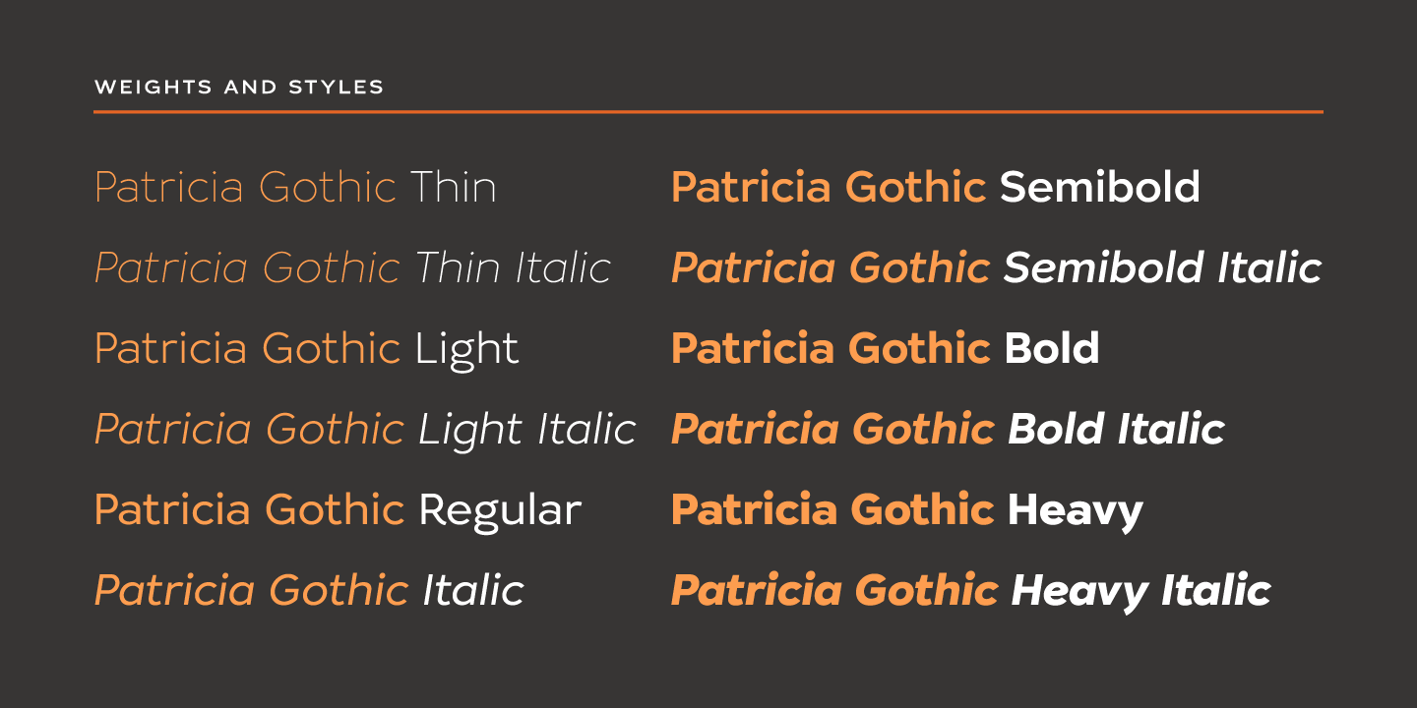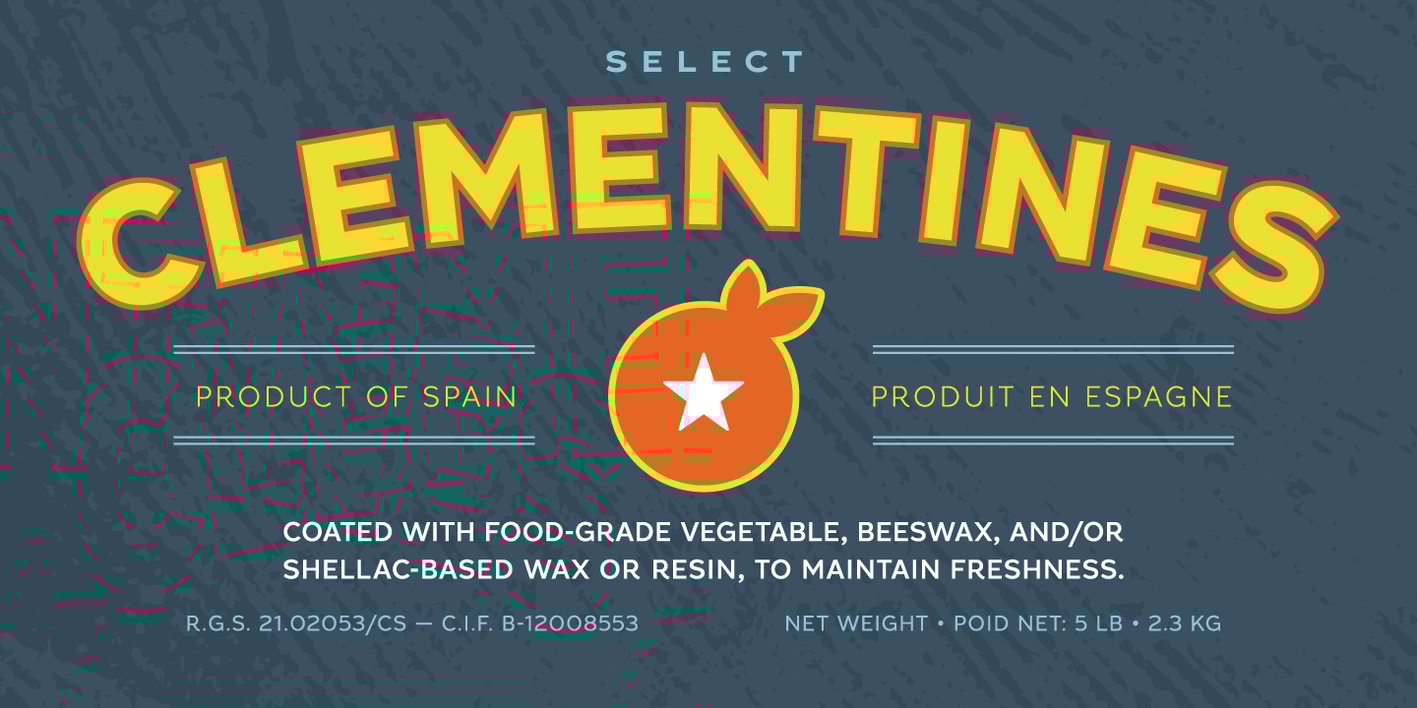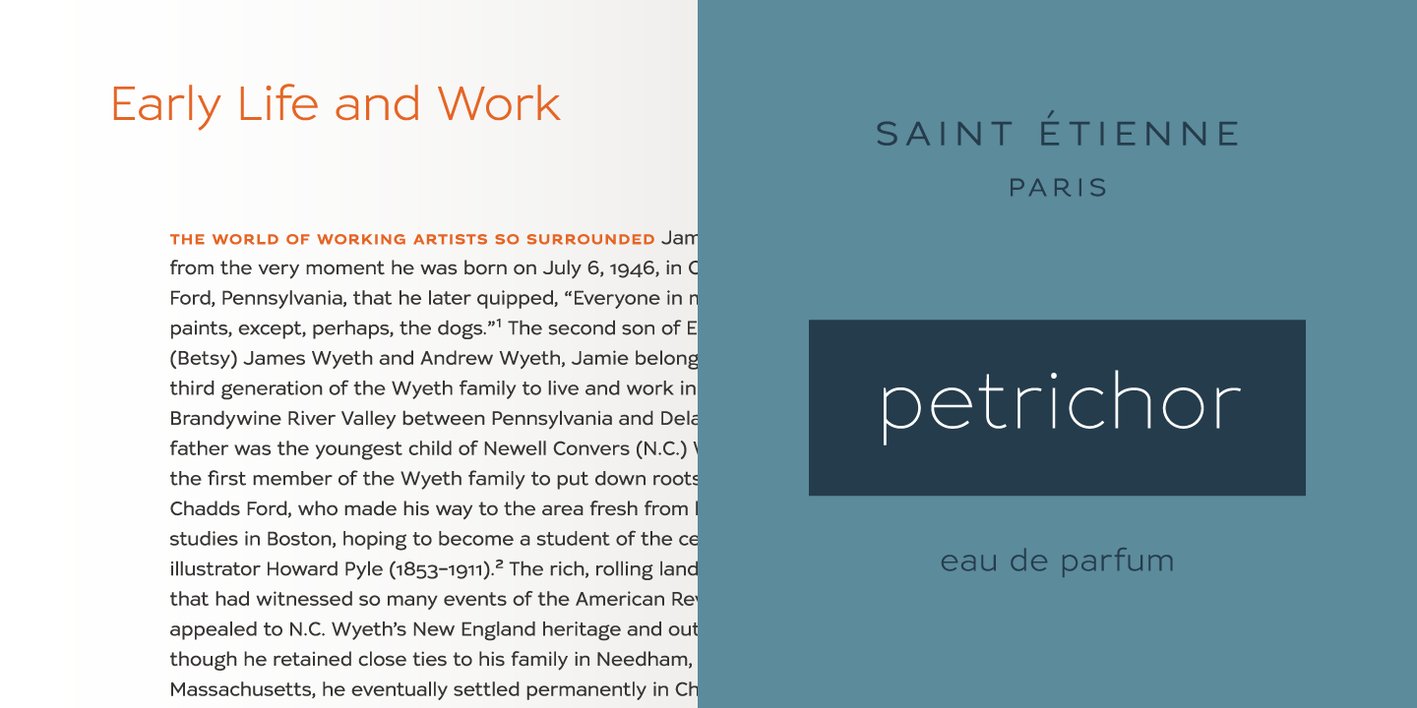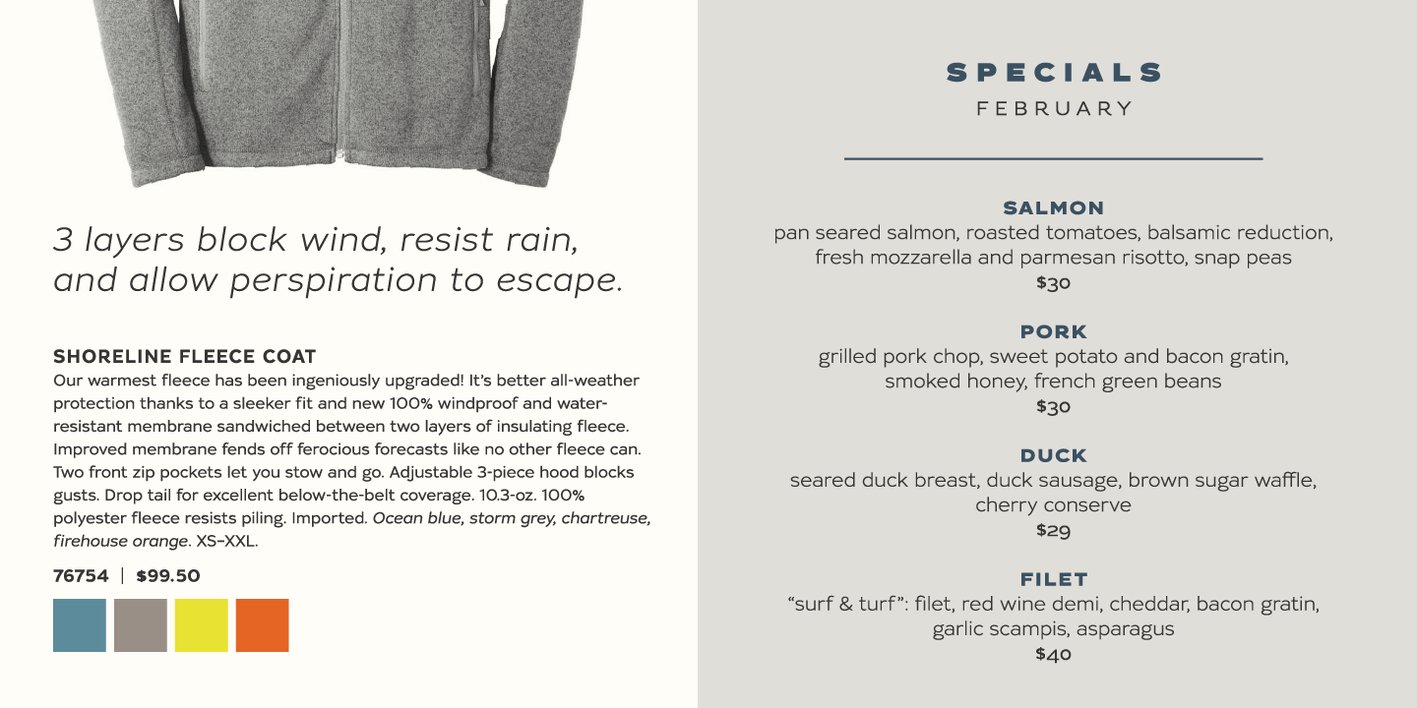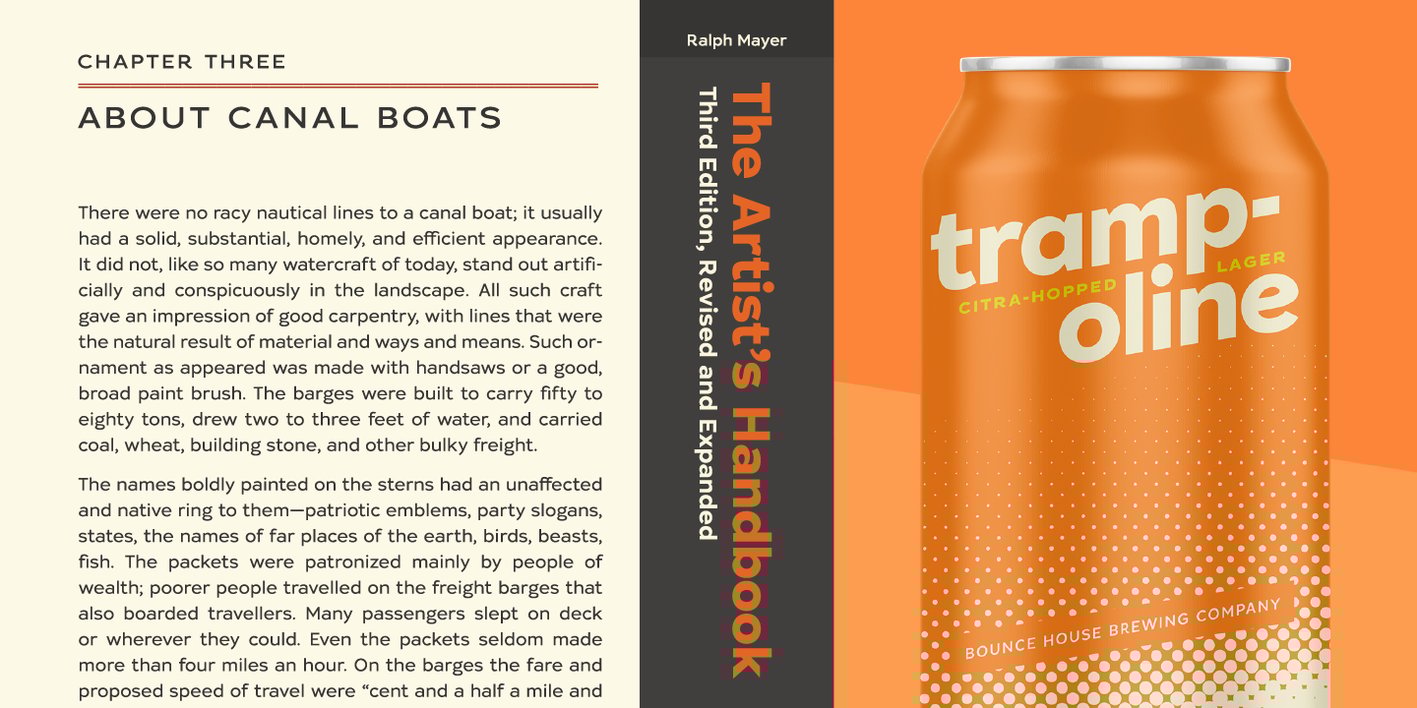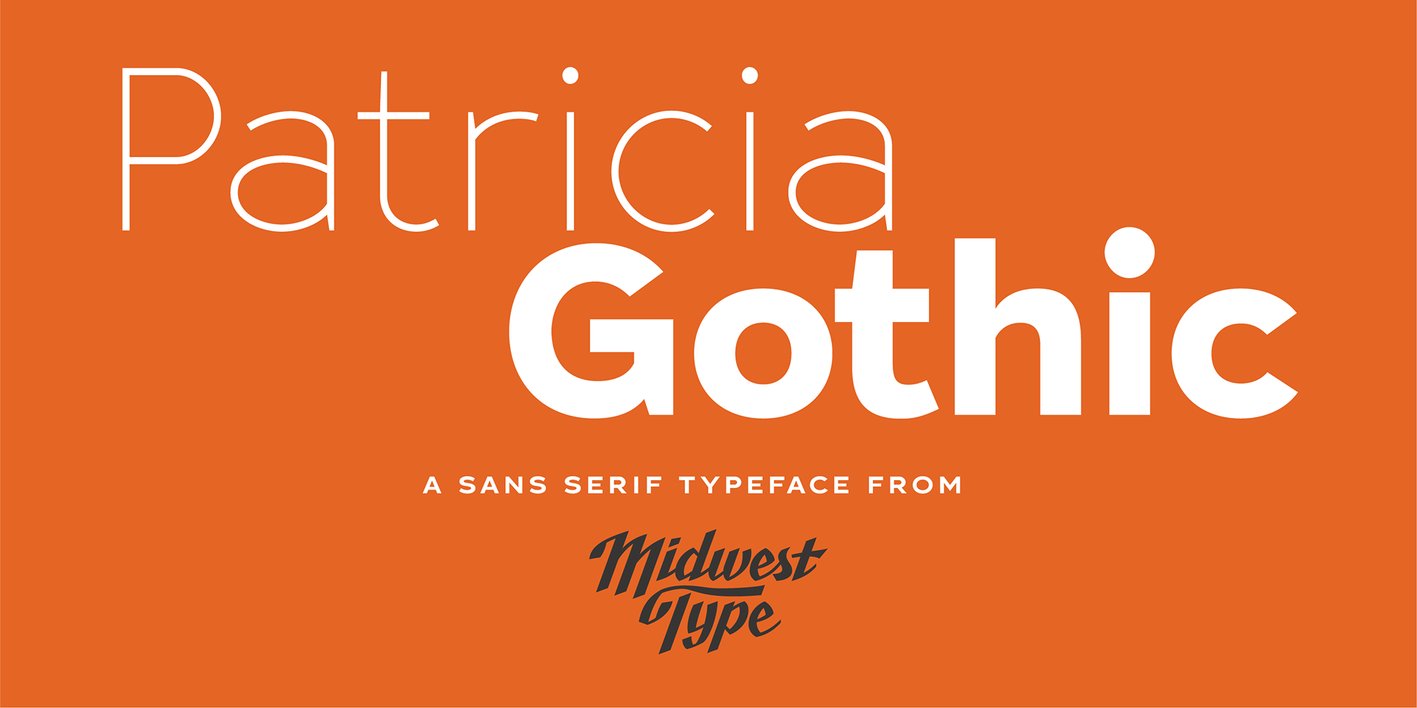
Patricia Gothic Font
Patricia Gothic Font is ideal for elegant fashion magazines, sophisticated beauty brands, upscale boutique signage, refined women's publications, luxury spa materials, premium jewelry packaging, classical music programs, graceful wedding invitations, distinguished cultural institutions, and timeless feminine branding projects.
What makes Patricia Gothic Font so exciting is its exquisite fusion of gothic strength and feminine grace that creates a uniquely sophisticated typographic voice celebrating both power and elegance in contemporary design. This beautifully crafted typeface features refined letterforms with classical proportions and graceful character variations that immediately convey sophistication, strength, and the timeless beauty of confident femininity. The font's elegant construction and refined aesthetic create an instant sense of distinguished taste and empowered grace, making it ideal for projects that need to communicate sophisticated femininity, classical elegance, and the powerful combination of strength and beauty to audiences seeking authentic elegance and meaningful empowerment through design excellence.
The Patricia Gothic Font family typically includes multiple elegant weights and refined styles, often featuring light, regular, and bold variations along with gracefully flowing italic versions. Sophisticated gothic font collections frequently offer additional classical elements such as ornamental flourishes, elegant ligatures, and refined decorations that enhance the distinguished aesthetic and provide designers with comprehensive tools for creating genuinely elegant and culturally sophisticated communications.
The sophisticated nature of Patricia Gothic Font makes it particularly effective for targeting demographics that value both classical elegance and contemporary empowerment in their personal and professional expressions. Luxury marketers and cultural communicators will find this font especially valuable for materials that must establish immediate sophistication while connecting with audiences seeking authentic elegance and meaningful cultural refinement.
What distinguishes Patricia Gothic Font is its remarkable ability to convey powerful femininity while maintaining the classical restraint essential for sophisticated communication. This balanced characteristic makes it suitable for both luxury applications requiring ultimate refinement and empowerment contexts where projecting strength and maintaining elegant appeal must coexist harmoniously.
Professional designers recognize that Patricia Gothic Font brings invaluable sophisticated credibility to projects across industries including luxury fashion, cultural institutions, premium beauty, and refined publishing. Its elegant character and sophisticated appeal make it essential for organizations whose mission centers on celebrating classical beauty, promoting refined culture, and creating elegantly empowering experiences that honor both tradition and contemporary sophistication.
The thoughtfully balanced elegance of Patricia Gothic Font ensures consistent sophisticated messaging across all refinement-focused communication applications while honoring the timeless relationship between strength and grace in classical design principles.